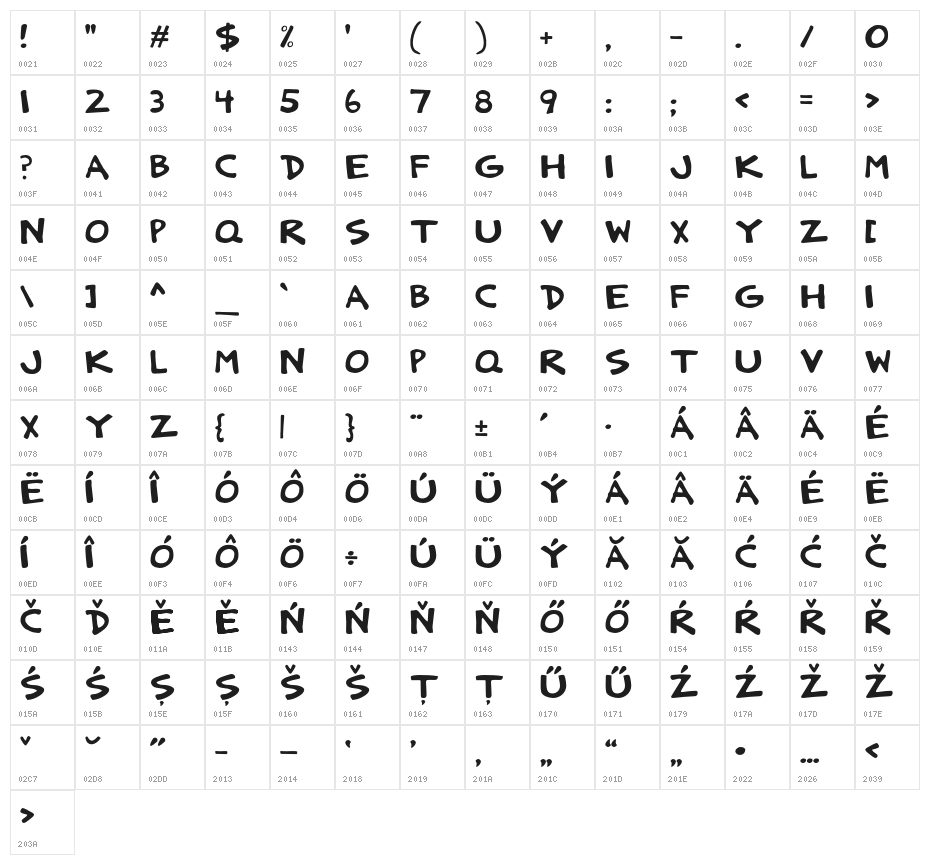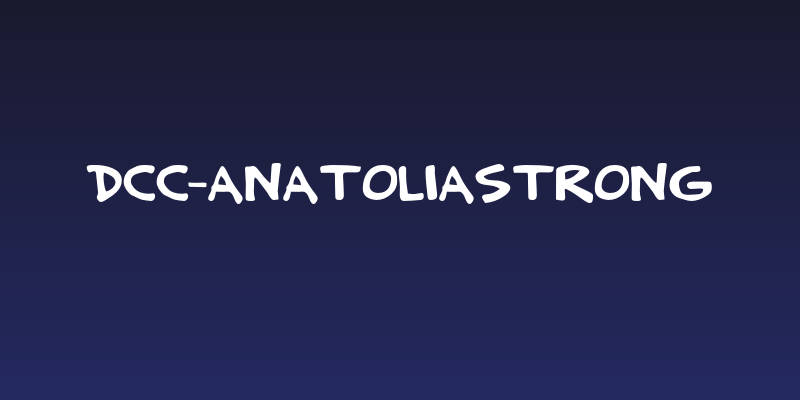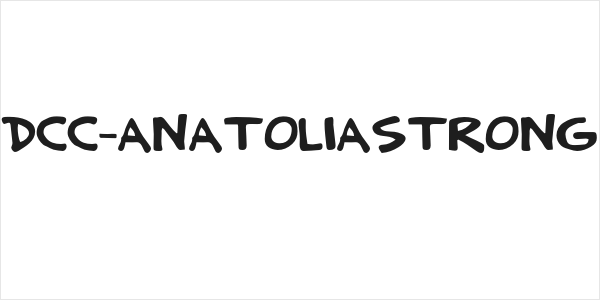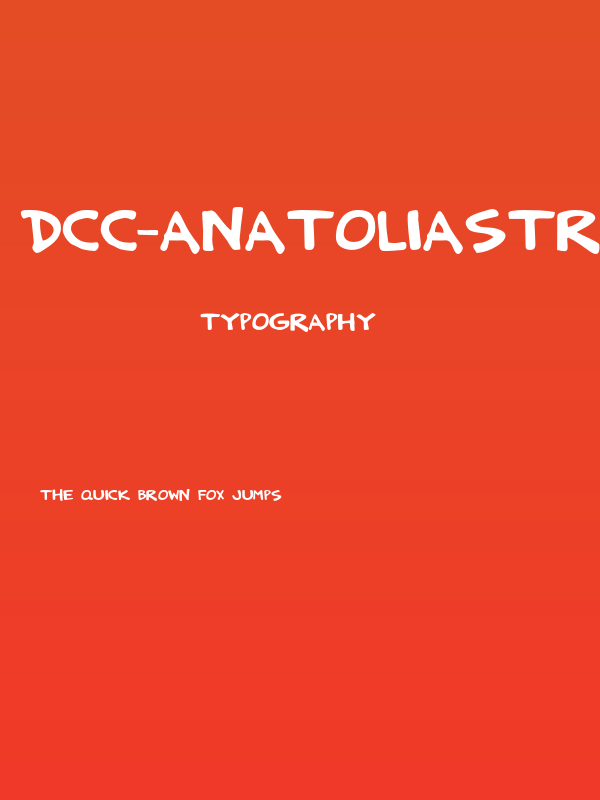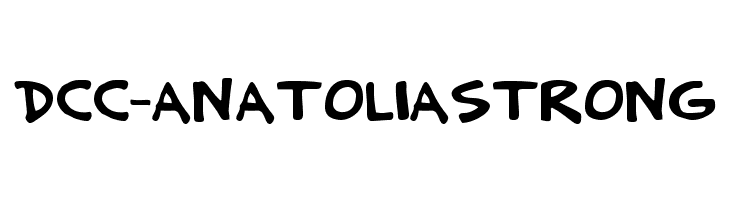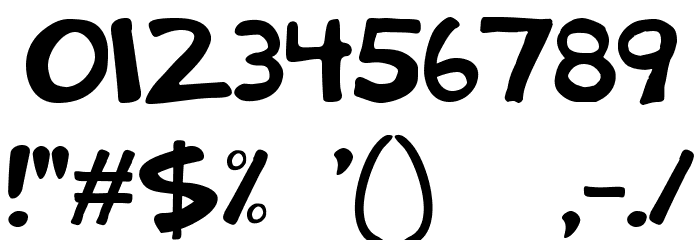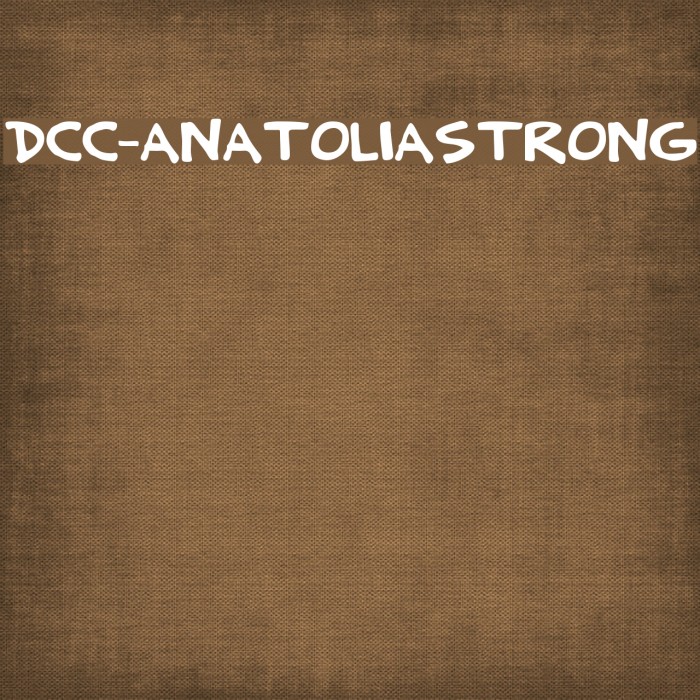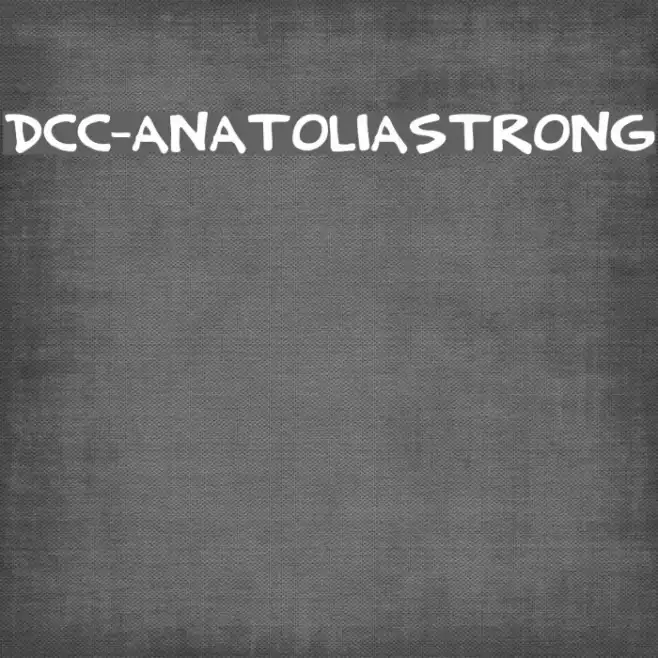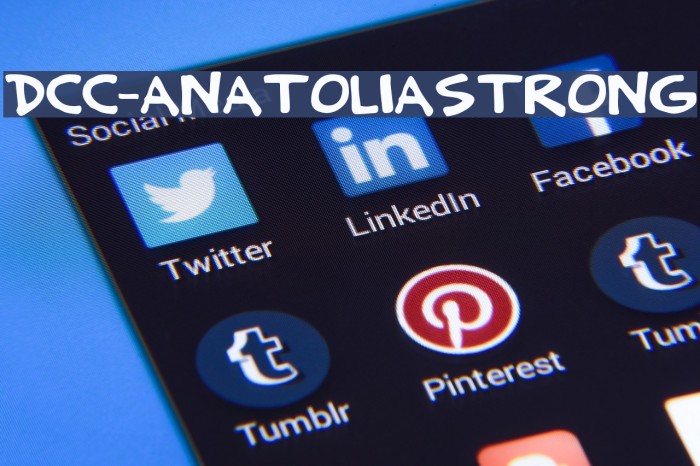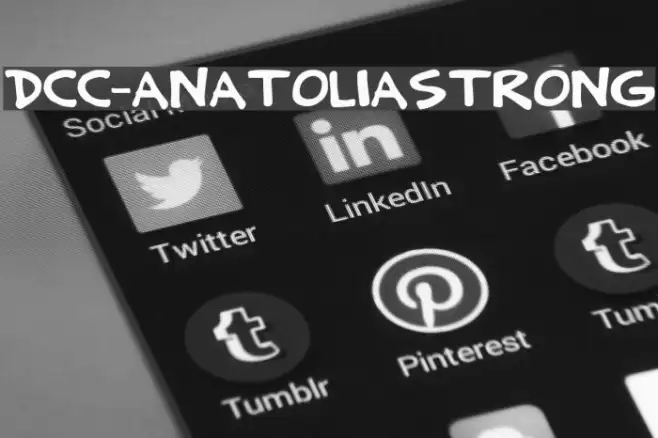
DCC-AnatoliaStrong Font
DCC-AnatoliaStrong Description
This font features a bold and playful style with a hand-drawn appearance. The characters are rounded and slightly irregular, giving it a casual and friendly look. The uppercase and lowercase letters maintain a consistent weight, while the numbers and special characters complement the overall design. The strokes are thick and uniform, providing a strong visual impact. This font is ideal for projects that require a fun and approachable aesthetic, such as children's books, posters, or informal branding.
| Proposed Projects | Ideal for children's books, playful posters, informal branding, and creative designs. |